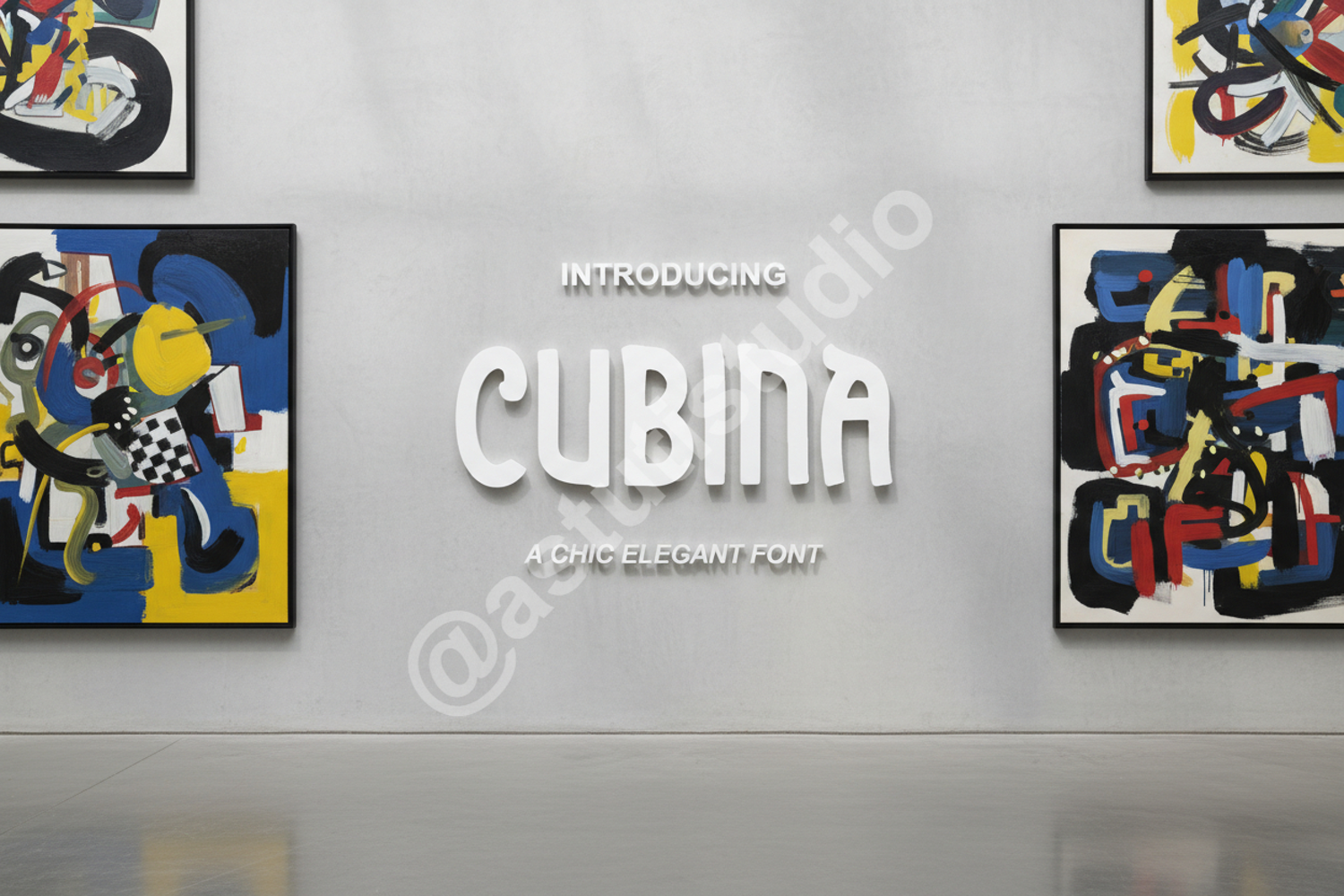
Cubina - A Modern and Sophisticated Sans Serif
Cubina
Cubina is a premium sans-serif typeface meticulously crafted for designers seeking a balance of modern sophistication and timeless clarity. With its clean lines and geometric foundation, Cubina offers a professional aesthetic that elevates any creative project from ordinary to extraordinary.
Cubina is highly versatile and performs exceptionally well across various mediums, including:
- Corporate Branding and Identity Systems
- High-end Editorial Layouts and Magazine Spreads
- Minimalist Logo Design and Wordmarks
- Modern Website Headers and User Interfaces
- Social Media Graphics and Marketing Collateral
- Luxury Packaging and Print Media